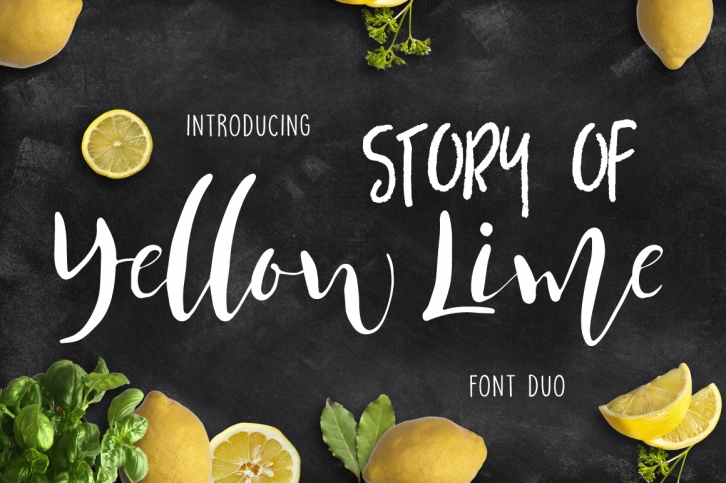
Yellow Lime Duo + Vector Doodle is a great font that was designed by Mellow Design Lab. Imagine the amount of combinations you can create using this font! The archive is 1.62 MB and it was released on June 10, 2016. Yellow Lime Duo + Vector Doodle looks beautiful on wedding invitations, greeting cards, logos, posters, labels, t-shirt designs, logos, business cards and is perfect for use in ink or watercolor works, fashion, magazines, packaging and food menus, children's books and more!